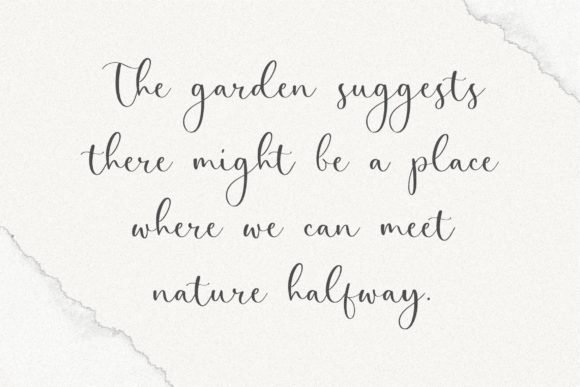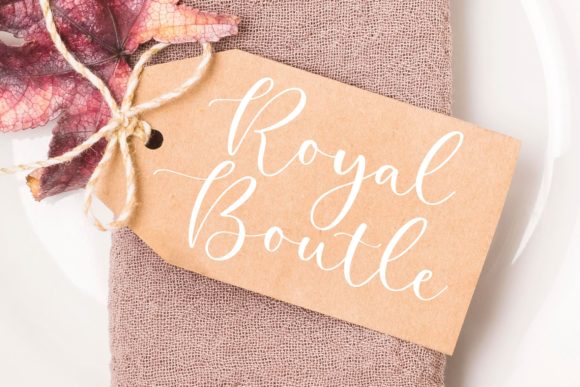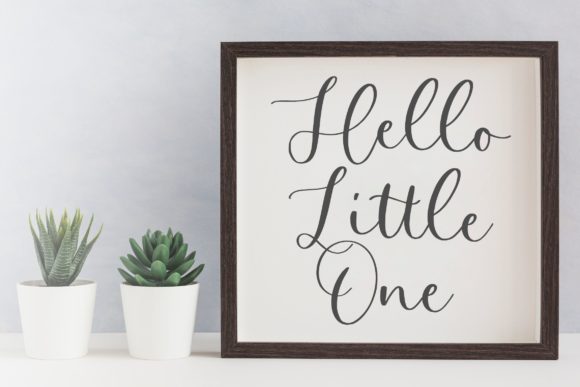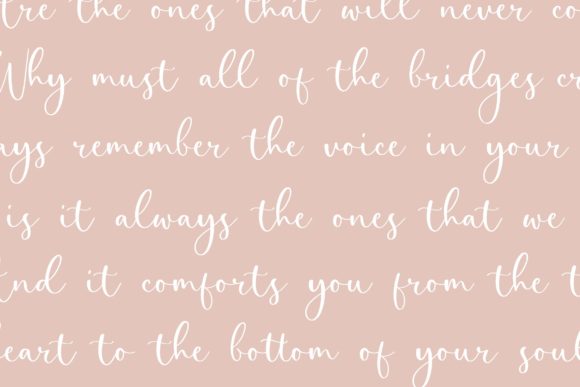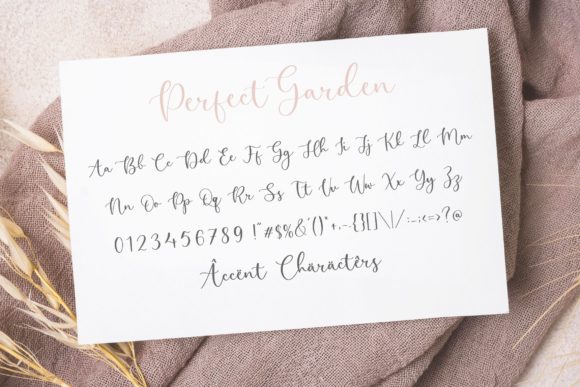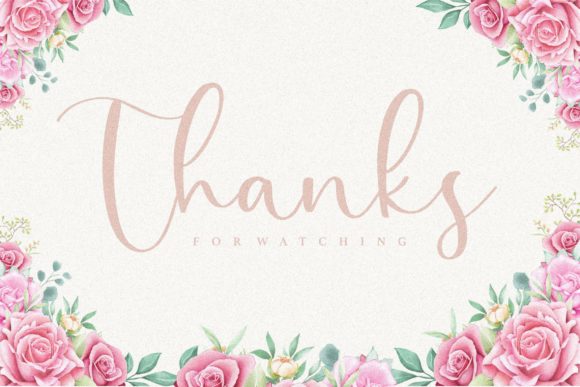
Introduction to Perfect Garden Font
Have you ever stared at a blank page, waiting for the perfect font to bring your creative project to life? That’s exactly where I found myself last week, working on a new design concept. As I scrolled through my design resource library, one font caught my eye – the Perfect Garden Font. Its delicate, elegant, and flowing handwritten style immediately resonated with me, and I couldn’t wait to see how it would transform my design.
With its beautiful and well-balanced characters, the Perfect Garden Font is a true design gem. Whether you’re working on a free download project or a high-end commercial design, this font is sure to add a touch of sophistication and whimsy to your work. Its versatility makes it a valuable addition to any designer’s toolkit, and its transparent background ensures seamless integration with any background or image.
Key Features of Perfect Garden Font
- High-quality design resource with a transparent background, perfect for creative projects.
- Includes a range of elegant and whimsical characters, ideal for adding a touch of nature to your design.
- Unique characteristic: Each letter has a subtle, hand-drawn feel, giving your design a personal touch.
- Perfect for use in invitations, greeting cards, and other creative projects where a touch of whimsy is desired.
Honest Review: Perfect Garden Font
I recently came across the Perfect Garden Font, a free download that caught my eye. As a designer, I’m always on the lookout for high-quality design resources that can elevate my creative projects.
Here’s what I liked about the Perfect Garden Font: ✨
- Unique and whimsical design aesthetic
- Perfect for adding a touch of elegance to invitations, stationery, and other print materials
- Comes with a transparent background, making it easy to customize and layer with other design elements
However, I did encounter a few limitations: ⚠️
- May not be suitable for use in digital applications, as the font is not optimized for screen display
- Limited character set, which may not be ideal for longer text blocks
Overall, I’d say the Perfect Garden Font is a great addition to any designer’s toolkit. While it may not be perfect for every project, it’s a high-quality design resource that can add a touch of sophistication and whimsy to the right creative project.
The Perfect Garden Font is perfect for:
- Cards and invitations.
- Signs and banners.
- Marketing materials.